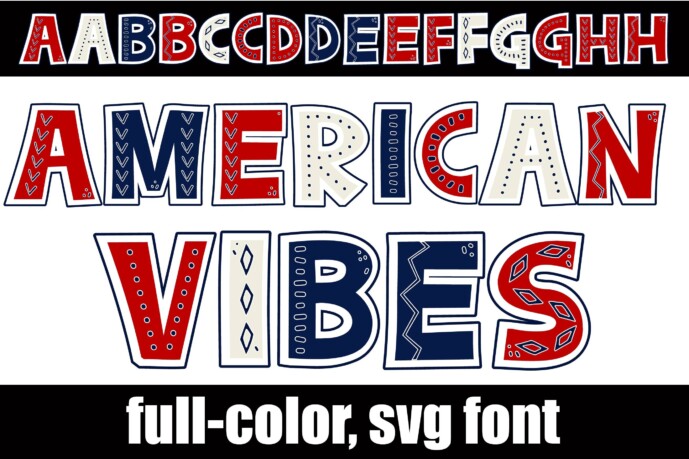
American Vibes Font
Designer: Illustration Ink
American Vibes Font
This full-color font features a chunky sans serif filled with whimsical patterns in an American color palette. There is an alt case of alternate colorings of each letter that you can access through your system or Silhouette’s glyph map.